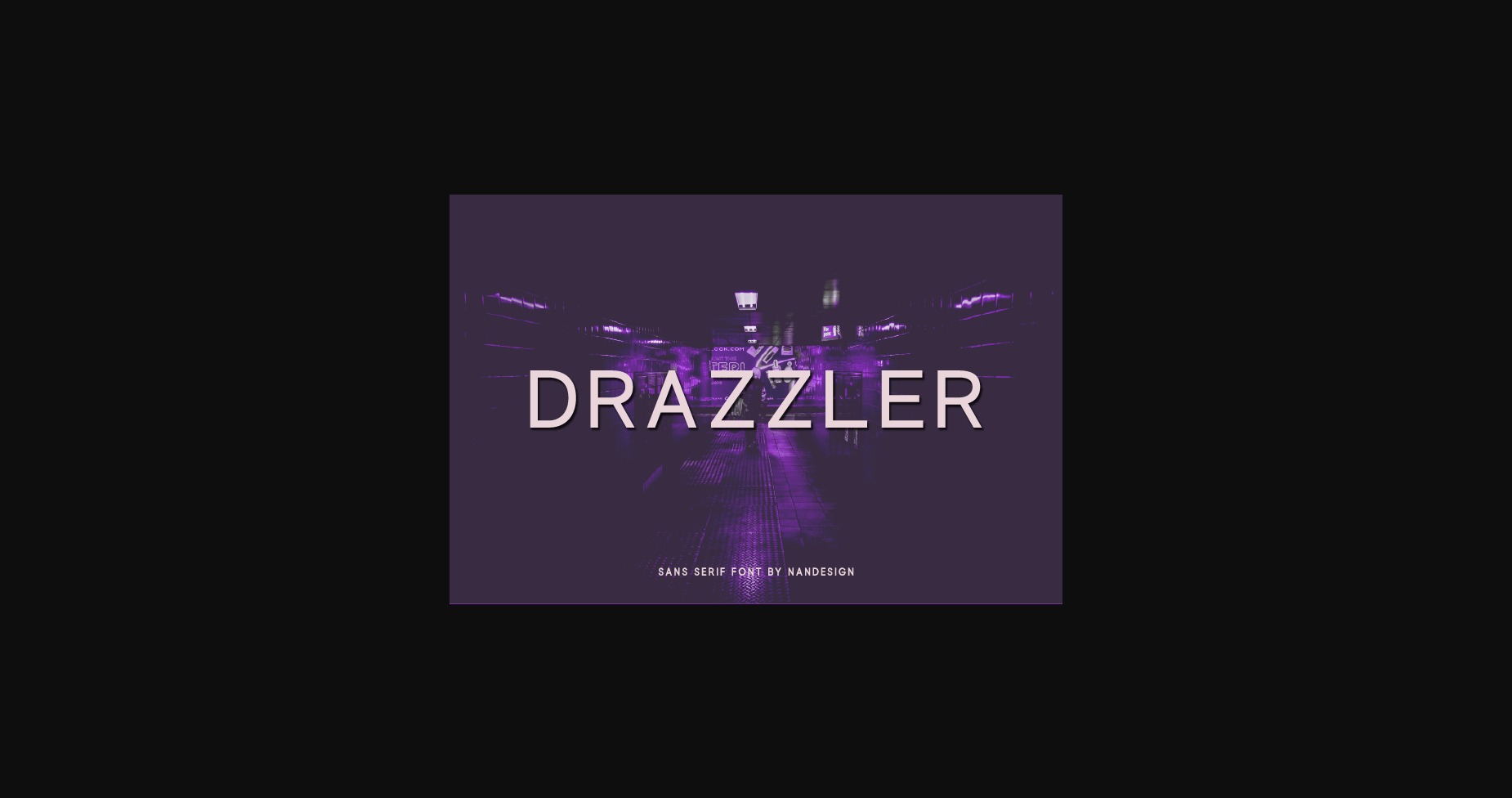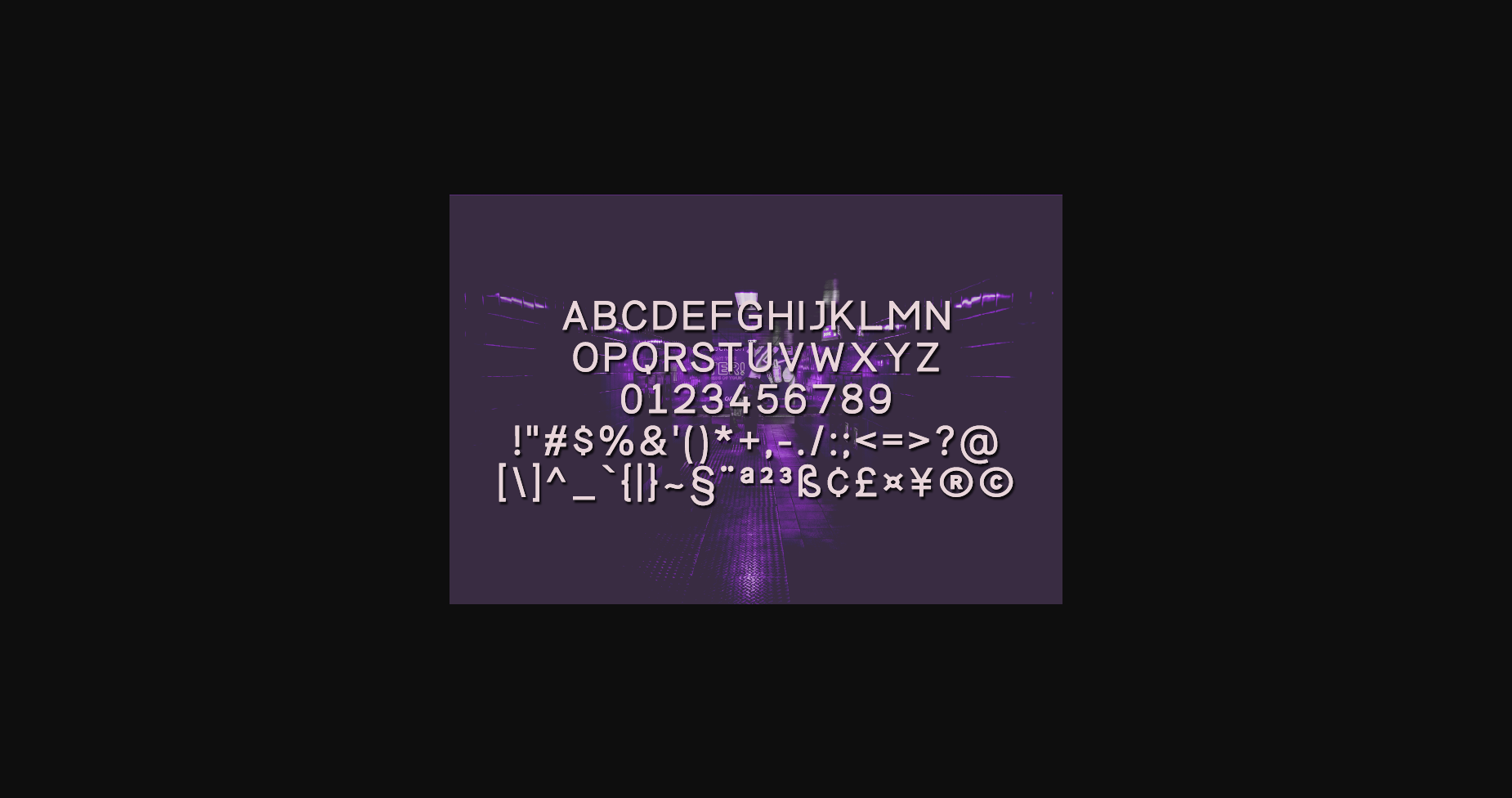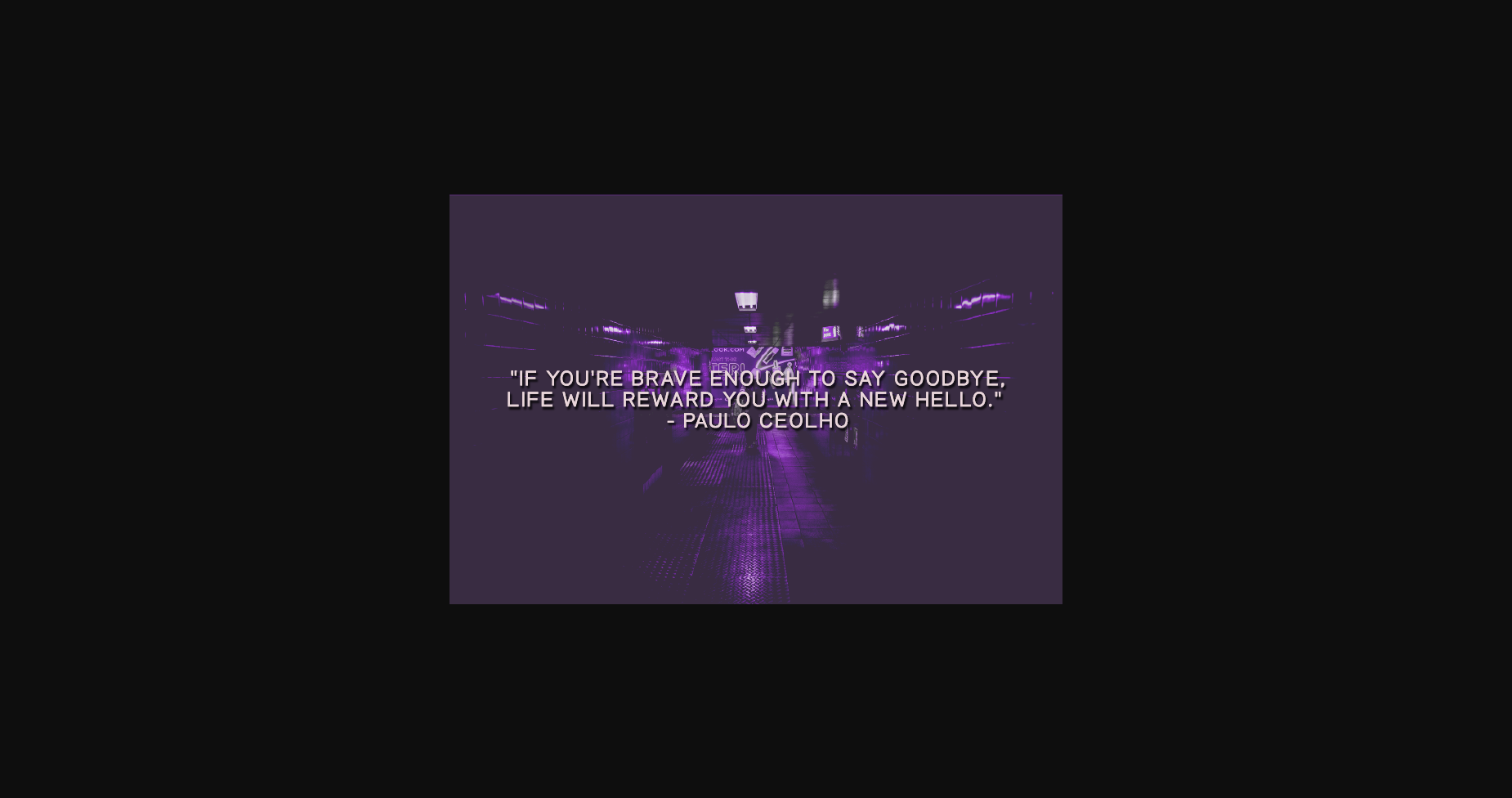
Drazzler Font
About Drazzler Font
Drazzler is a stunning sans serif to complement every project you’re working on.
Use to create beautiful headings, gorgeous invitations, stunning logos, and so much more!! Perfect for displays, headers, invitations, save the dates, weddings, and so much more! It contains an uppercase alphabet with numbers and symbols.